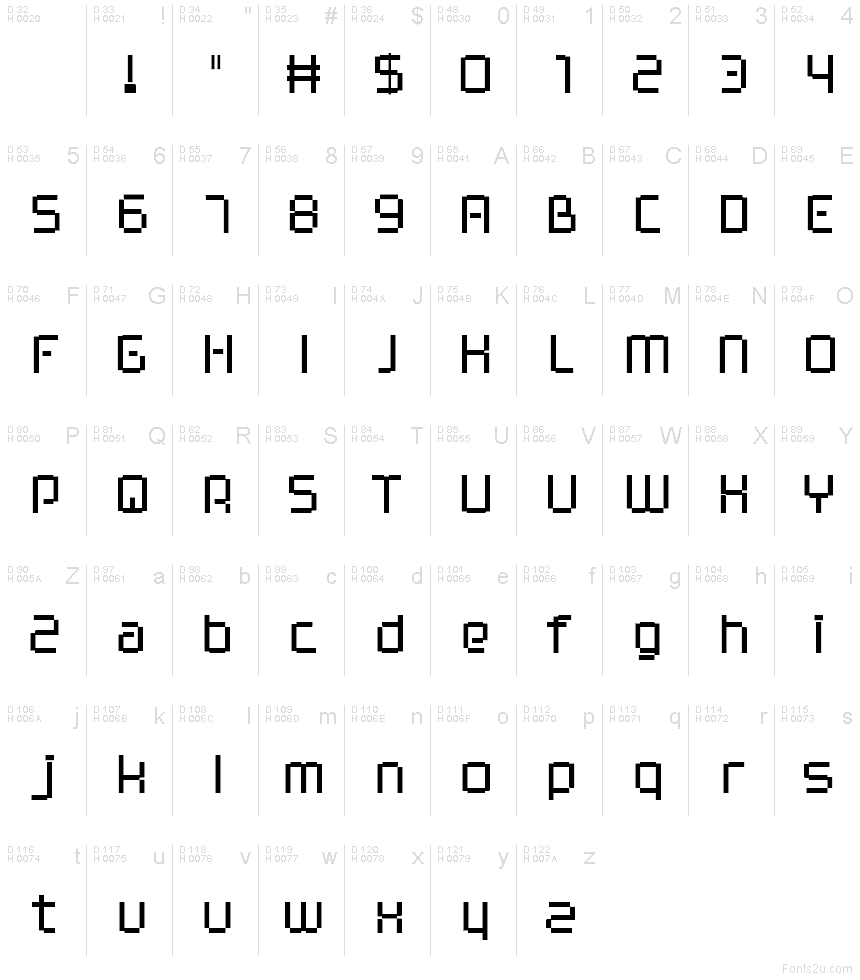
PixPixls
PixPixls font is a free pixelated font designed by Ffeeaarr. This futuristic typeface features a geometric and avant-garde style with modernist influences. Beautifully crafted pixels are meant to mimic print fonts that can be found on classic gaming consoles and computer screens.
Leverage these block-based letters on signage, logos, posters, gaming typography, advertising, titles, headlines, and social media posts.